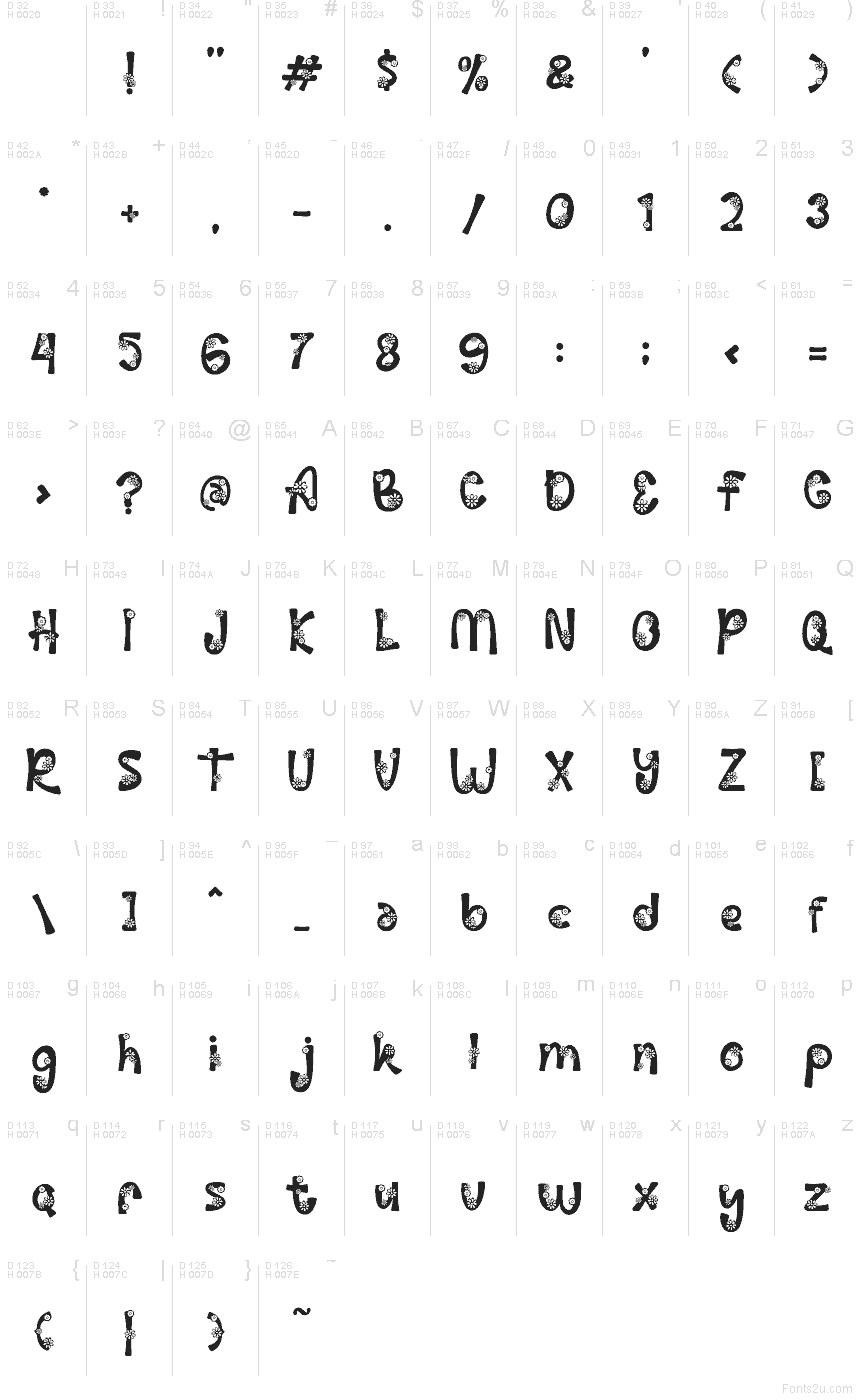
Palm Sunday Flower
Palm Sunday Flower font by Putracetol Studio is a free decorative display font with rounded letterforms and small flower motifs tucked into the strokes. The letters feel soft and hand-touched, with each shape carrying the same floral accent so the whole name reads like a planted pattern rather than plain text.
Palm Sunday Flower works well for spring invitations, greeting cards, boutique packaging, scrapbook titles, and floral poster accents because its ornamented shapes already do some of the decorating. This free font also fits social media graphics and label design when you want a gentle, flower-themed title that keeps the layout light and personal.